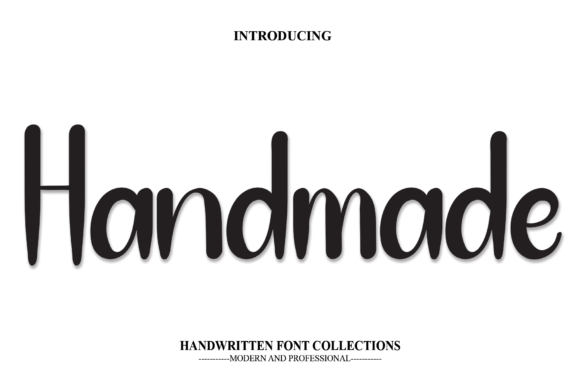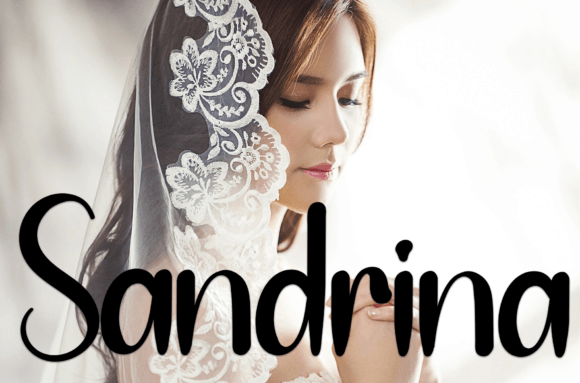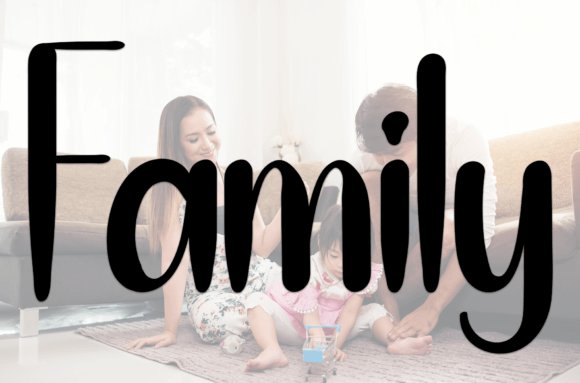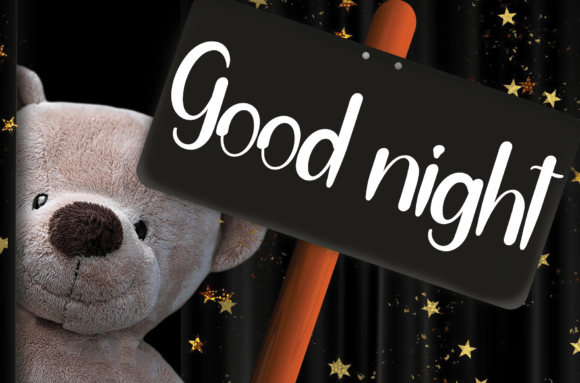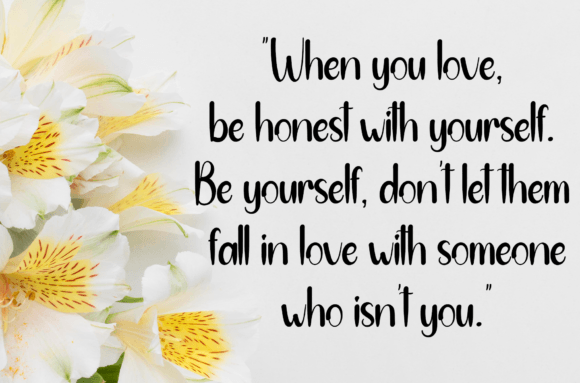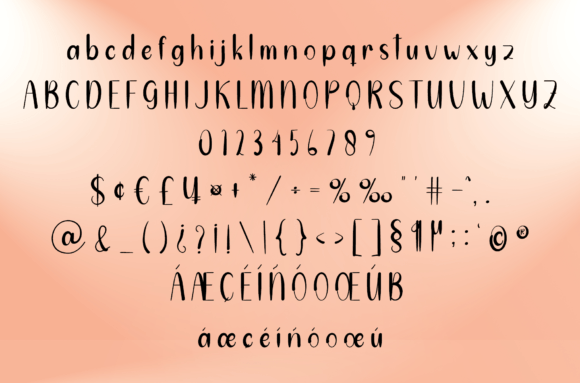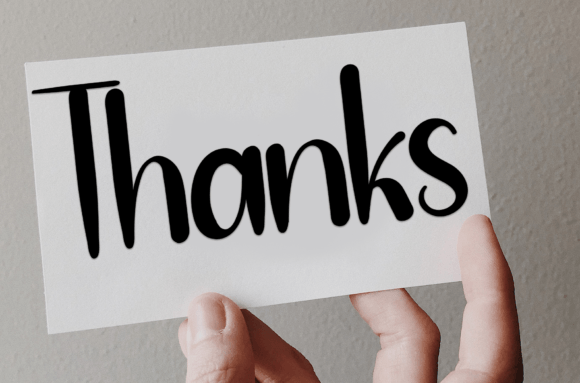
What Is Handmade Font?
Handmade is a sweet and friendly handwritten font designed to bring a personal, playful touch to any project. Each letter is carefully crafted with smooth curves and balanced strokes, making this font feel warm, inviting, and easy to read. If you want to add charm and authenticity to your designs, Handmade is the perfect choice.
You’ll love how easily it turns simple text into something beautiful and memorable.
Handmade is incredibly versatile, so you can use it for a wide range of creative applications. For example, it looks fantastic on wedding invitations. Whether your theme is modern or rustic, this font adds a joyful, romantic touch that feels special.
It’s also ideal for greeting cards. If you want to make your messages feel heartfelt and sincere, Handmade helps you say it beautifully.
Additionally, the font shines in social media graphics. Whether you’re promoting products, sharing quotes, or celebrating milestones, Handmade’s cute style makes your posts stand out.
You can also use Handmade for product packaging, labels, and logos. Its friendly look gives your brand a personal feel that customers will remember. From crafts and small business branding to digital templates, this font adapts seamlessly to every project.
Why Should You Choose Handmade Font?
There are plenty of reasons to add Handmade to your collection. First, it stays crisp and legible at any size. Whether you’re using it for large headlines or tiny labels, every letter keeps its clean, balanced shape.
It pairs well with both serif and sans-serif fonts, so creating professional designs is quick and easy.
Handmade adds life, warmth, and charm to every project. For example, if you want your work to feel personal and approachable, this font will help you achieve that effortlessly.
Even the simplest layouts gain character and energy thanks to Handmade’s smooth, playful strokes. Whether you’re designing invitations, product labels, or social media graphics, your work will look polished and professional.
Using a high-quality handwritten font also shows your attention to detail, helping you make a positive impression.
Handmade is more than just a font—it’s a creative tool that brings a joyful, friendly feel to any project. From wedding invitations and greeting cards to branding and packaging, this font adapts beautifully and elevates your work.